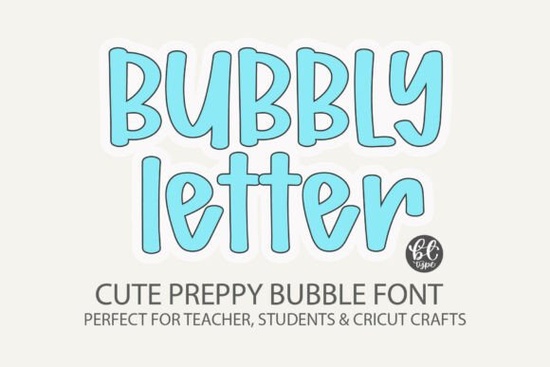
If you're looking for a cheerful, hand-drawn font that adds personality without overwhelming your design, the Bubbly Letter Font is worth a closer look. Designed with rounded, bouncy letterforms and a friendly vibe, it’s especially popular among teachers, crafters, and digital creators who want their projects to feel warm and inviting. Whether you’re making classroom posters, printable stickers, or social media graphics, this font brings a playful energy that works across both print and digital formats.
What makes Bubbly Letter stand out from other bubble fonts?
Unlike generic rounded sans-serifs, Bubbly Letter mimics natural handwriting each character has subtle irregularities that give it an authentic, human touch. It’s bold enough to read clearly at small sizes but still retains soft curves that feel approachable. Plus, it’s compatible with virtually any design software, from Canva and Procreate to Adobe Illustrator and Cricut Design Space.
One of its biggest strengths is versatility. You can use it for:
- Educational materials like flashcards, worksheets, and bulletin board headers
- Planner inserts and journaling kits where a lighthearted tone enhances creativity
- Digital stickers and quote graphics for Instagram or Etsy shops
- Craft projects using cutting machines SVG files are included for easy layering
Who is this font best suited for?
Teachers will appreciate how quickly they can create engaging visuals without sacrificing readability. Small business owners selling printable wall art or greeting cards can use it to add charm without looking overly cutesy. Print-on-demand sellers might pair it with minimalist layouts for mugs, tote bags, or kids’ apparel. And hobbyists who enjoy doodle-style journaling or scrapbooking will find it fits right into their aesthetic.
How does it work with design tools like Canva or Cricut?
Is it readable enough for everyday use?
Yes with caveats. While it’s not ideal for long paragraphs or body text, it shines in headlines, labels, titles, and short phrases. The generous spacing and open counters (the enclosed areas in letters like “o” or “e”) help maintain legibility even at smaller sizes. For classroom use, it’s clear enough for young readers when used on posters or name tags, especially when paired with a simple sans-serif for supporting text.
If you’re building a font library for seasonal or themed designs, consider mixing Bubbly Letter with complementary display fonts. For example, combine it with the Bubbly Letter Font itself in varying weights (if available) or contrast it with a clean geometric typeface to balance whimsy and structure.
- ✅ Confirm your project needs a handwritten bubble style not a techy, sleek, or formal look
- ✅ Pair it with neutral backgrounds or soft colors to let the playful letterforms stand out
If your creative work benefits from warmth, simplicity, and a dash of joy, Bubbly Letter could become a go-to in your toolkit. Try it on a small project first like a teacher appreciation card or a weekly planner header to see how it fits your workflow before scaling up to larger designs.